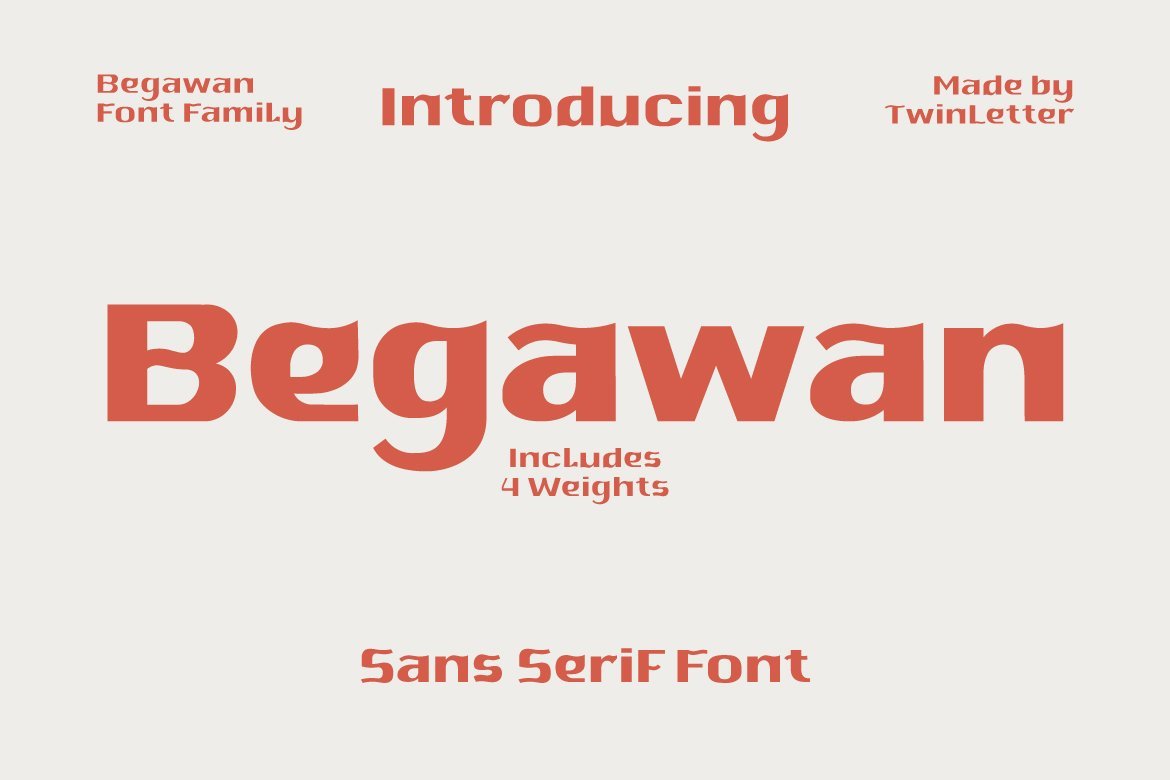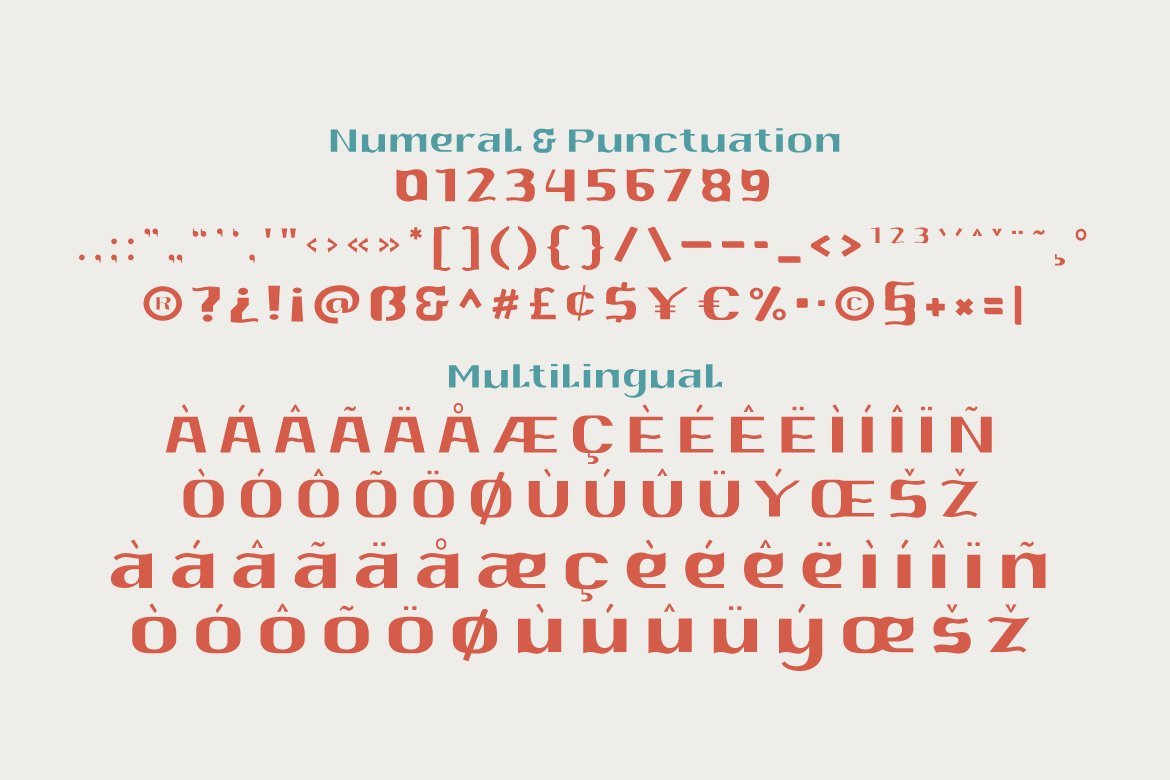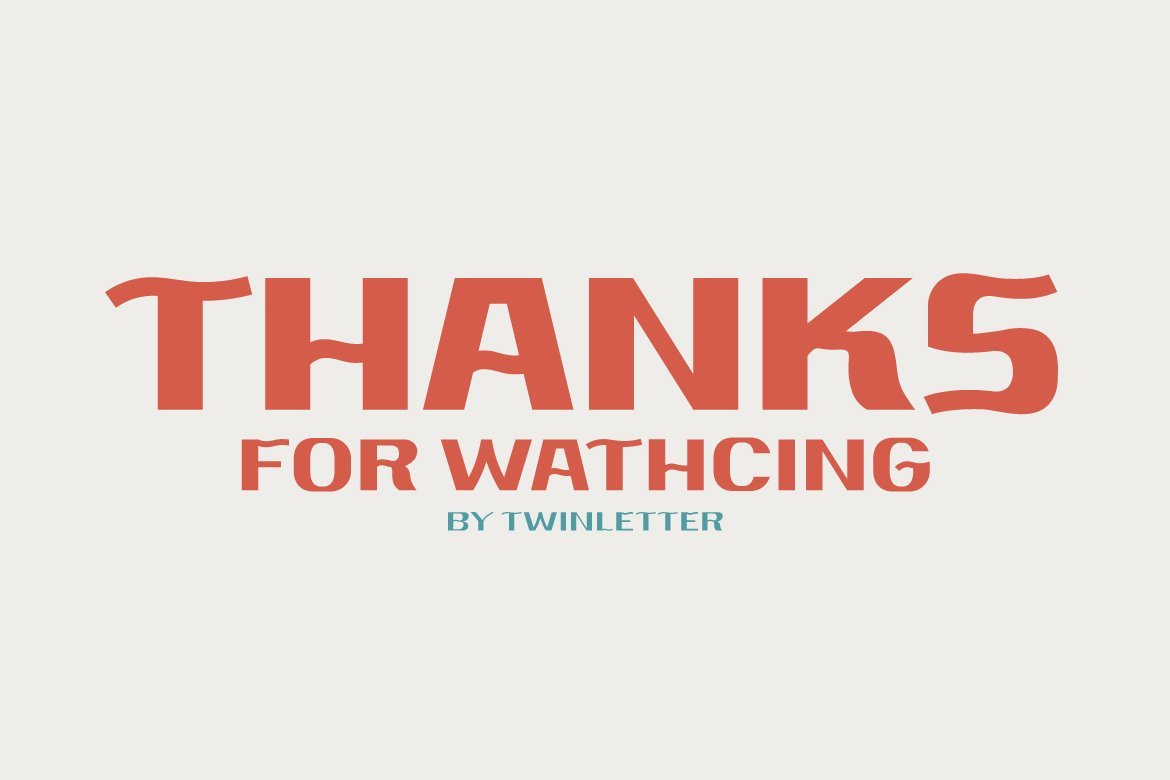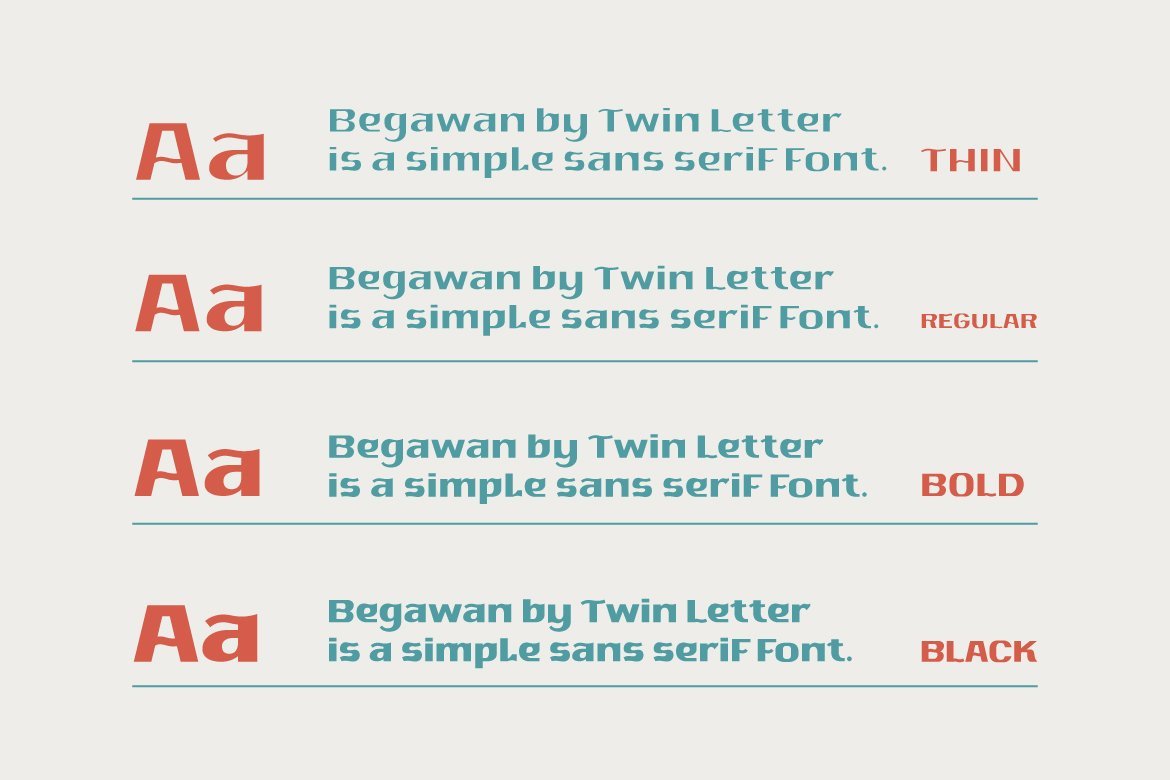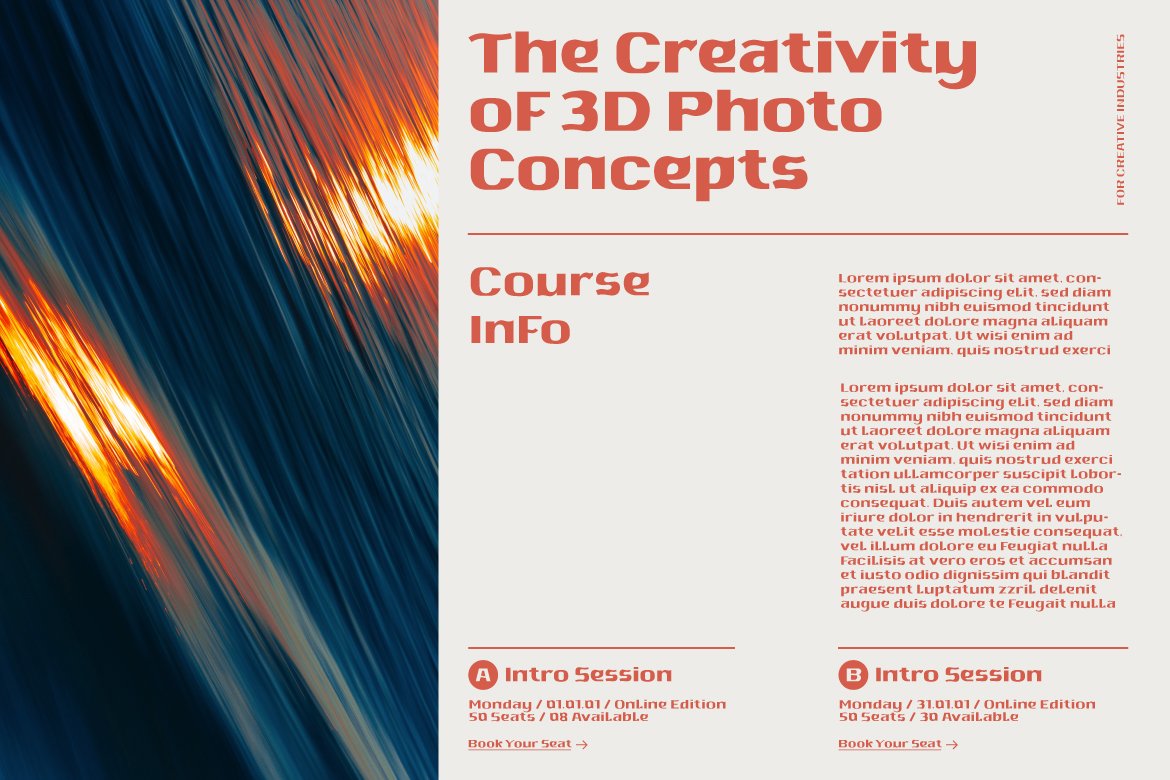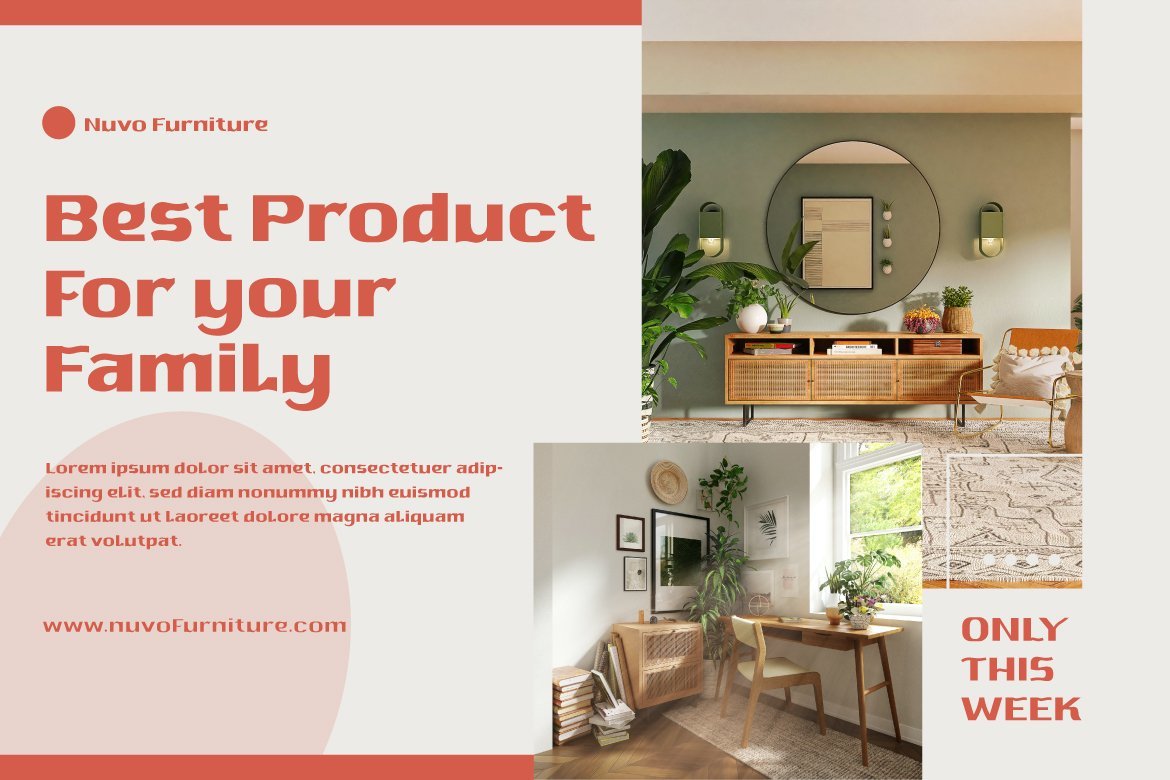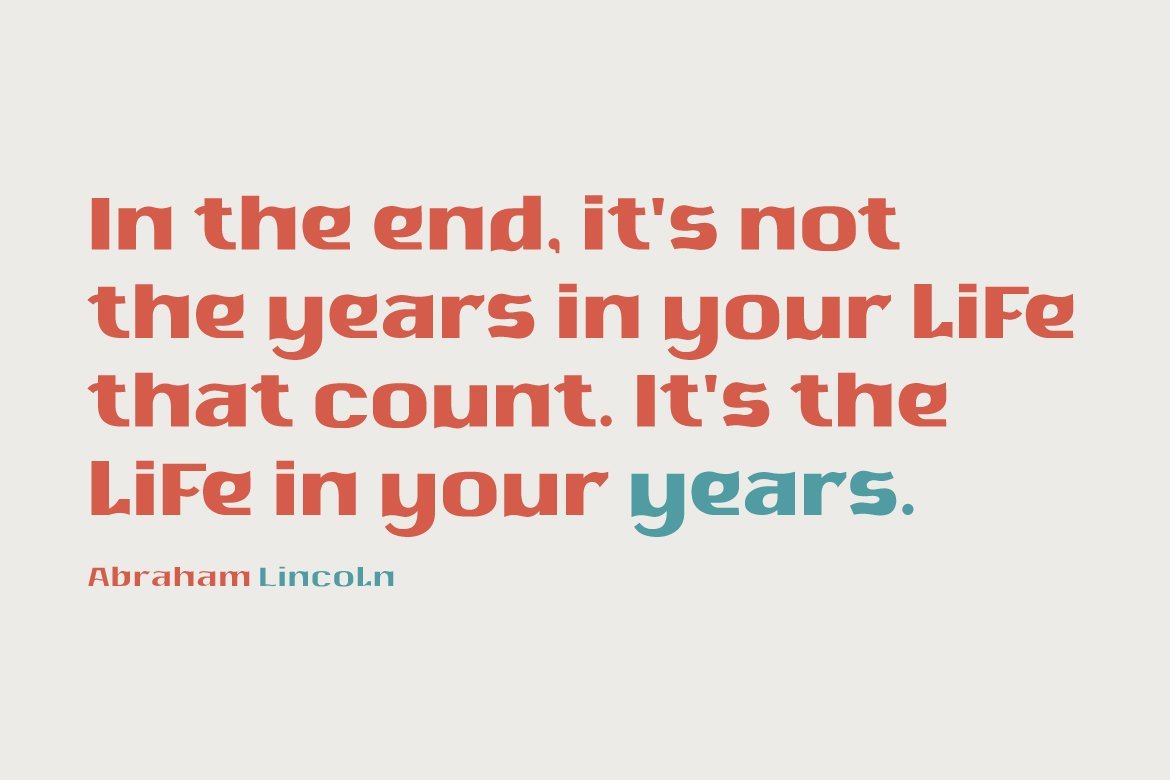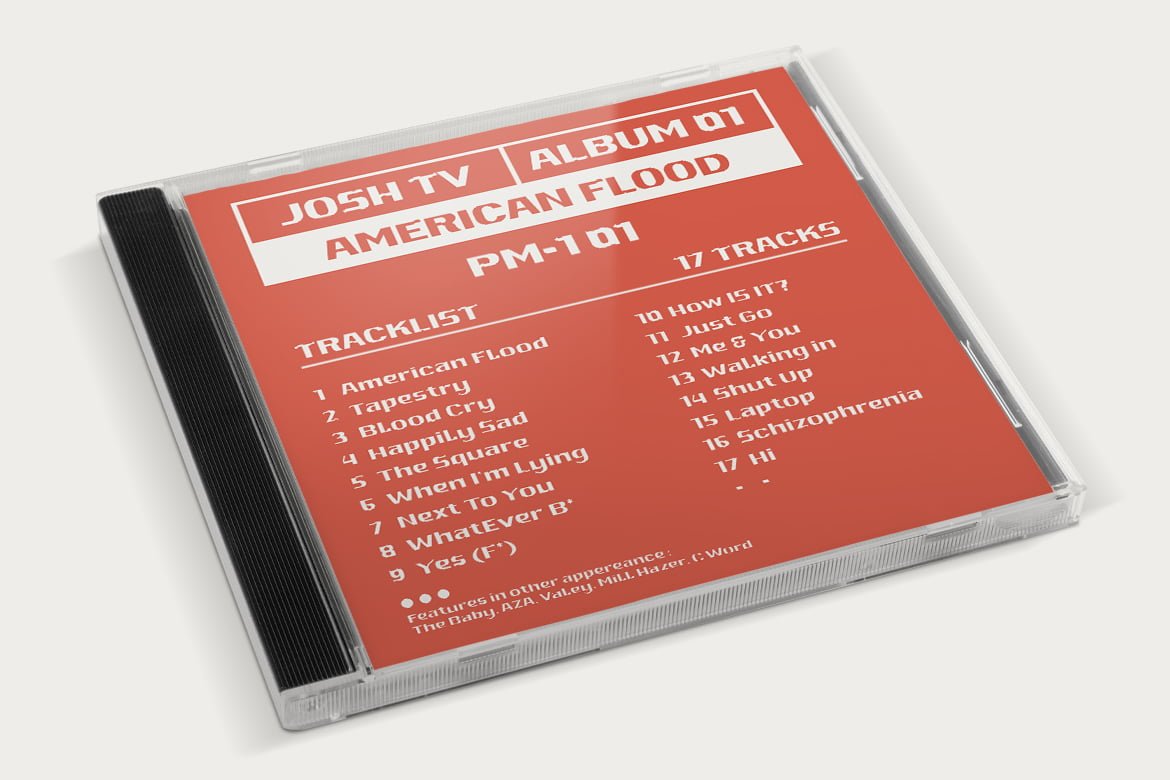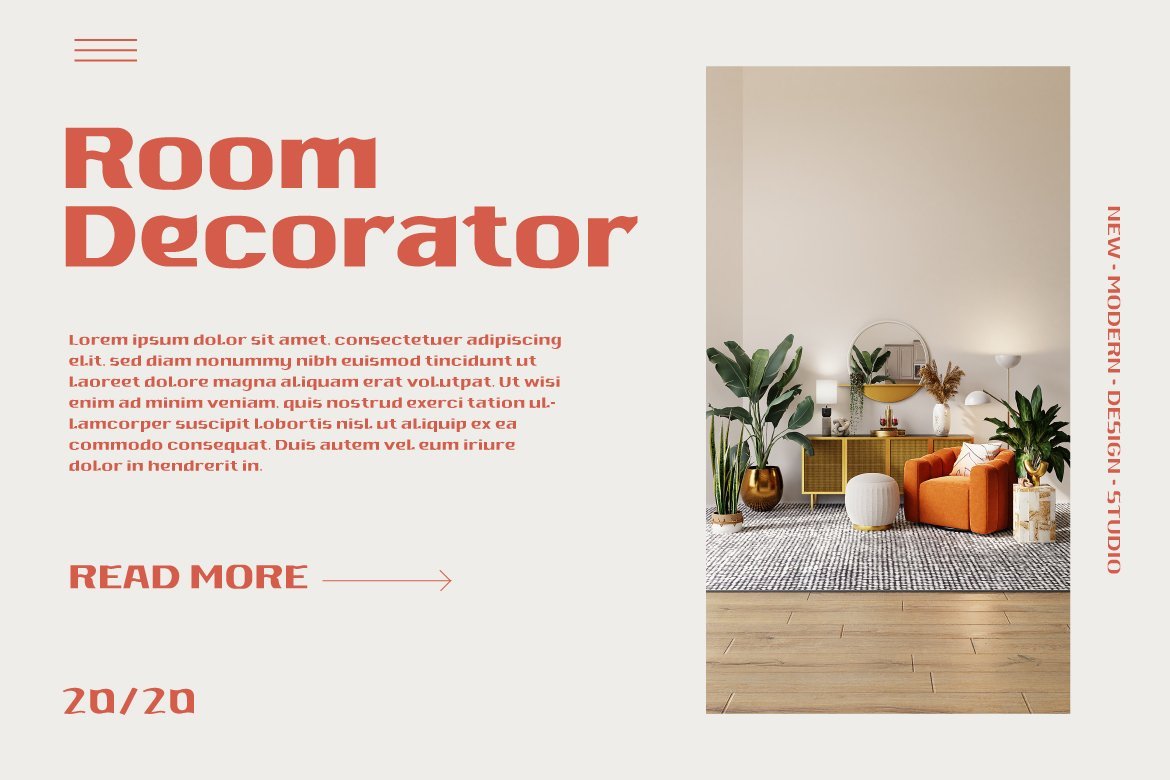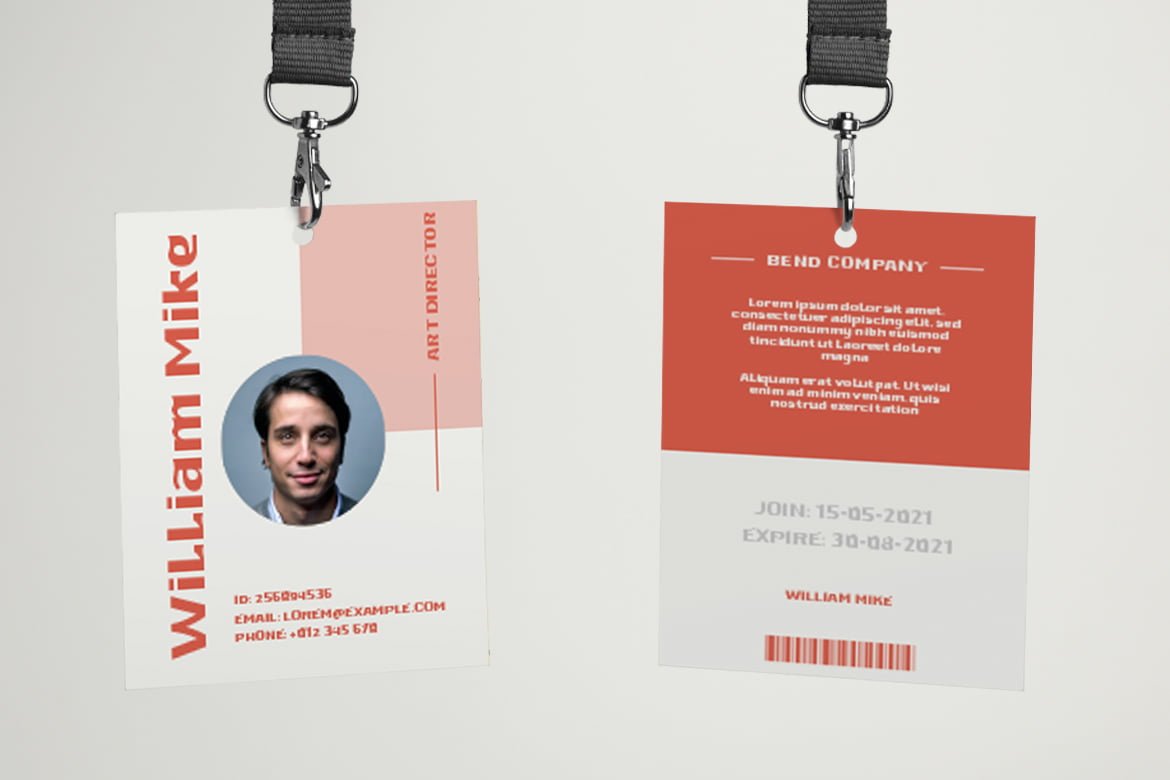
- Begawan
Begawan is a modern sans serif typeface designed in the style of beach waves to add a unique touch to all of your special projects.
Start using this typeface to make your visuals pop. It’s bold, bombastic, and stands out. Your entire audience will be blown away and will want to learn more about your idea.
- Fonts include multilingual support for; Afrikaans, Albanian, Croatian, Czech, Danish, Dutch, English, Estonian, Finnish, French, German, Hungarian, Italian, Norwegian, Polish, Portuguese, Slovak, Slovenian, Spanish, Swedish